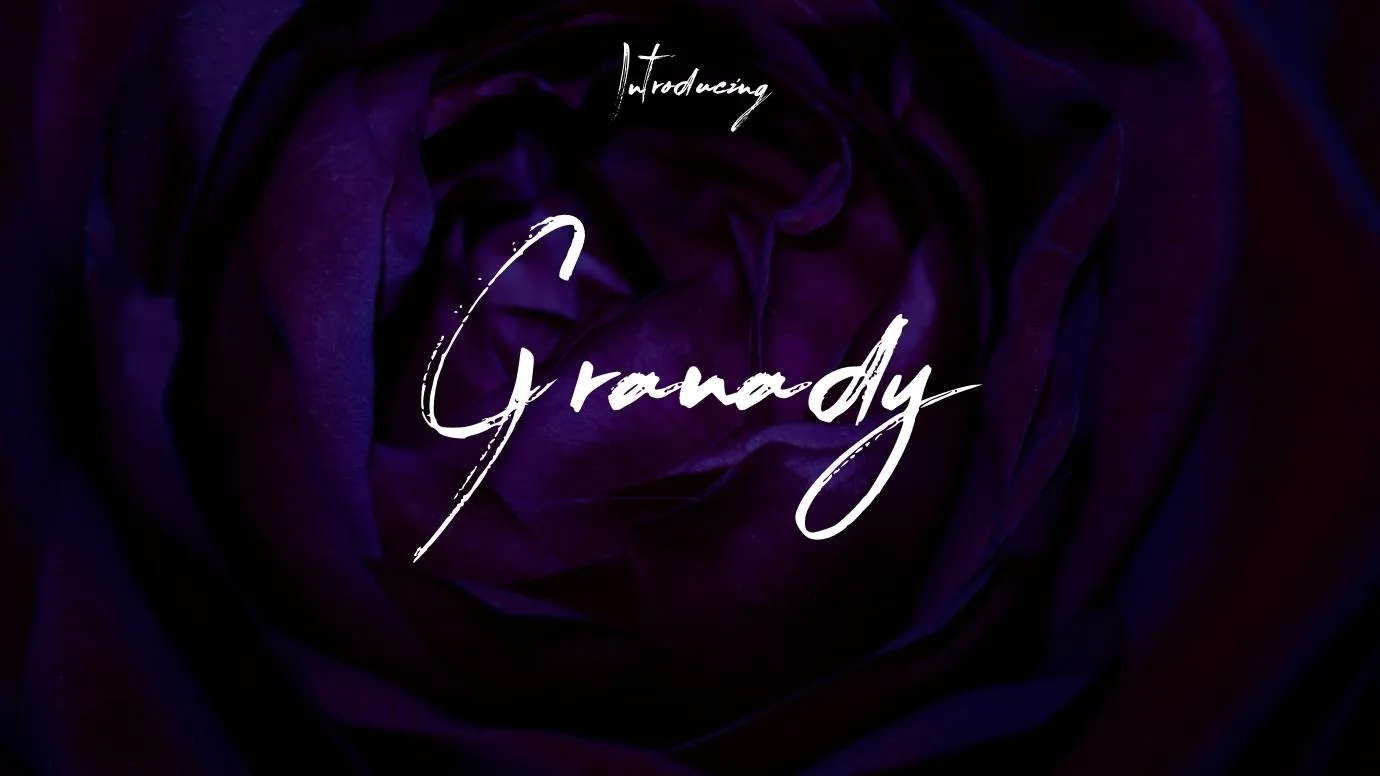
Granady Font Family is a modern brush typeface. Sifak Muf is the first designer of this amazing font. This awesome typeface was published by sifak1726 for the first time.
The fantastic texture of this font makes your design more eye-catching. This amazing font family has more than 120 stylish characters and over 100 unique glyphs along with 2048 units per em.
| Name | Granady Font |
| Type | Brush |
| Designer | Sifak Muf |
| Foundry | sifak1726 |